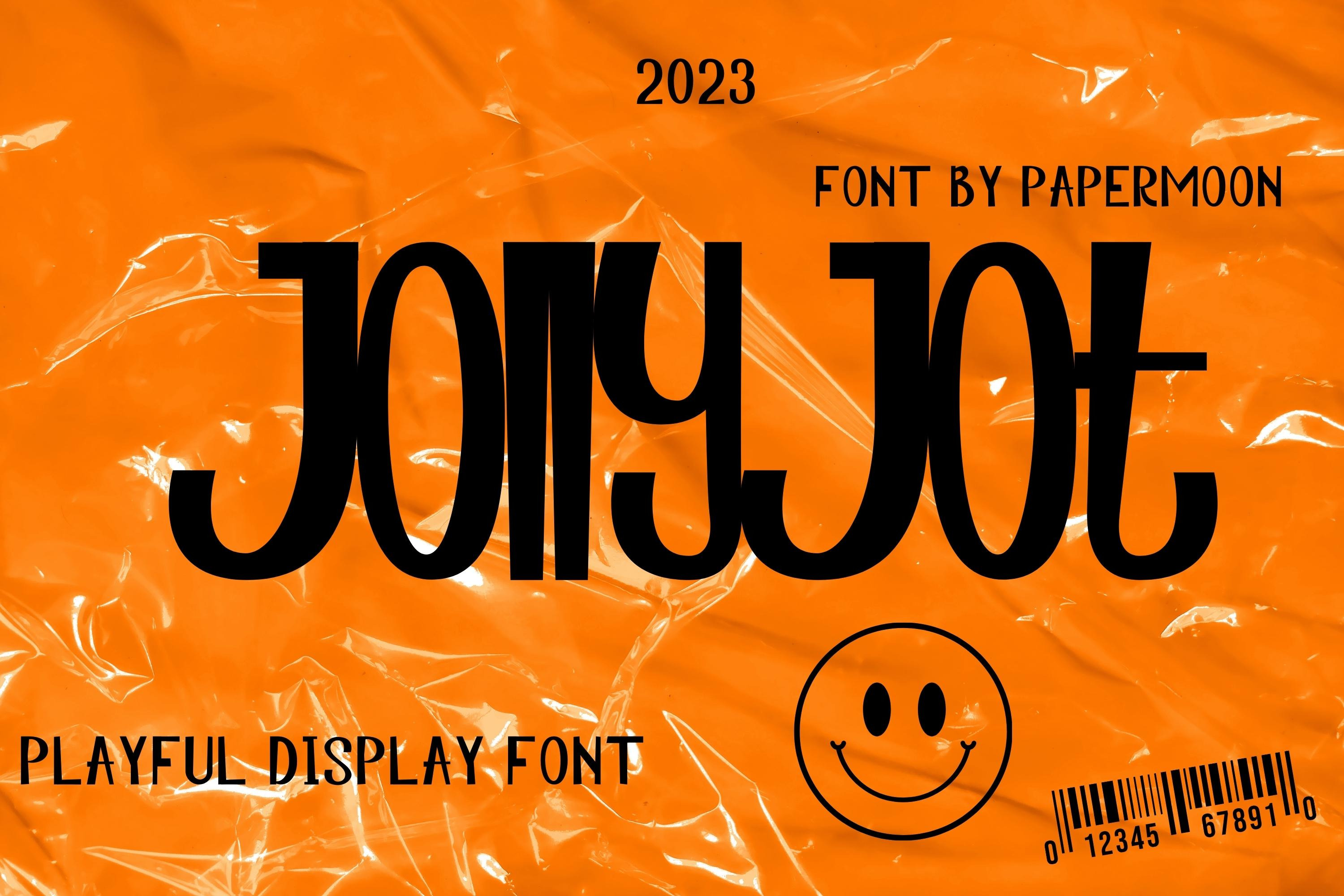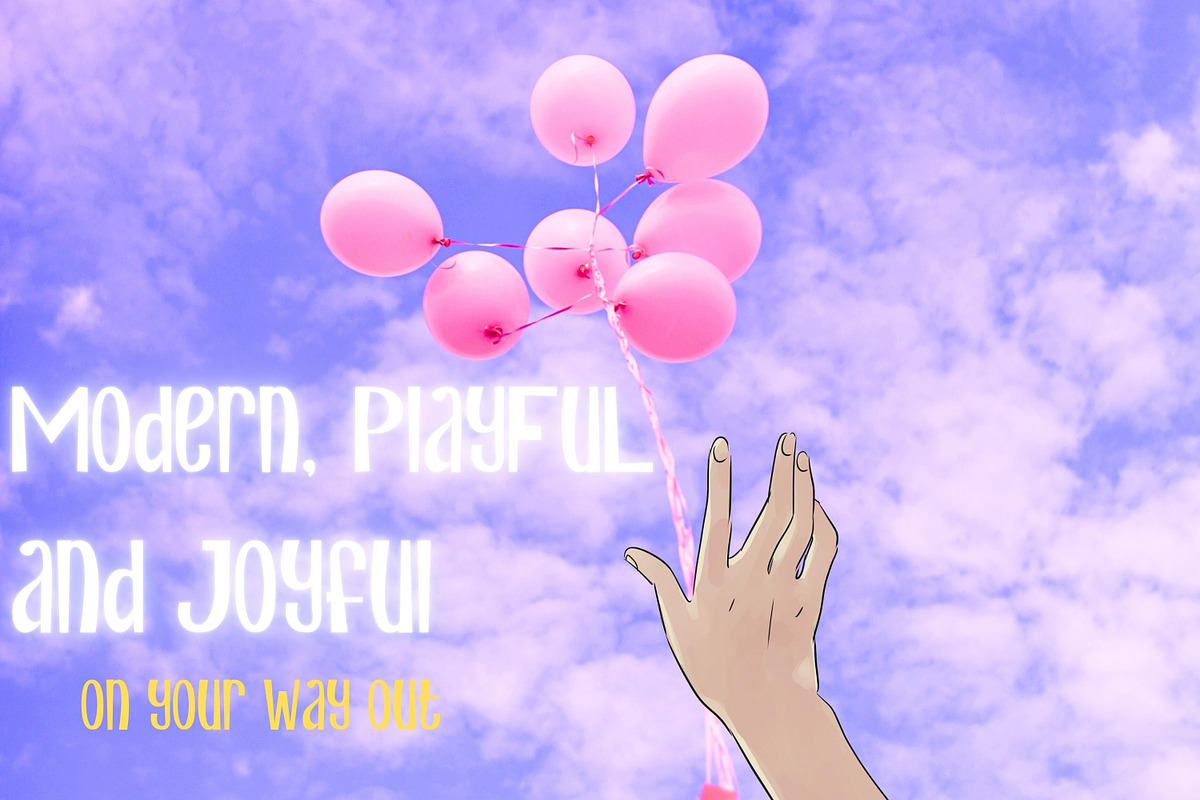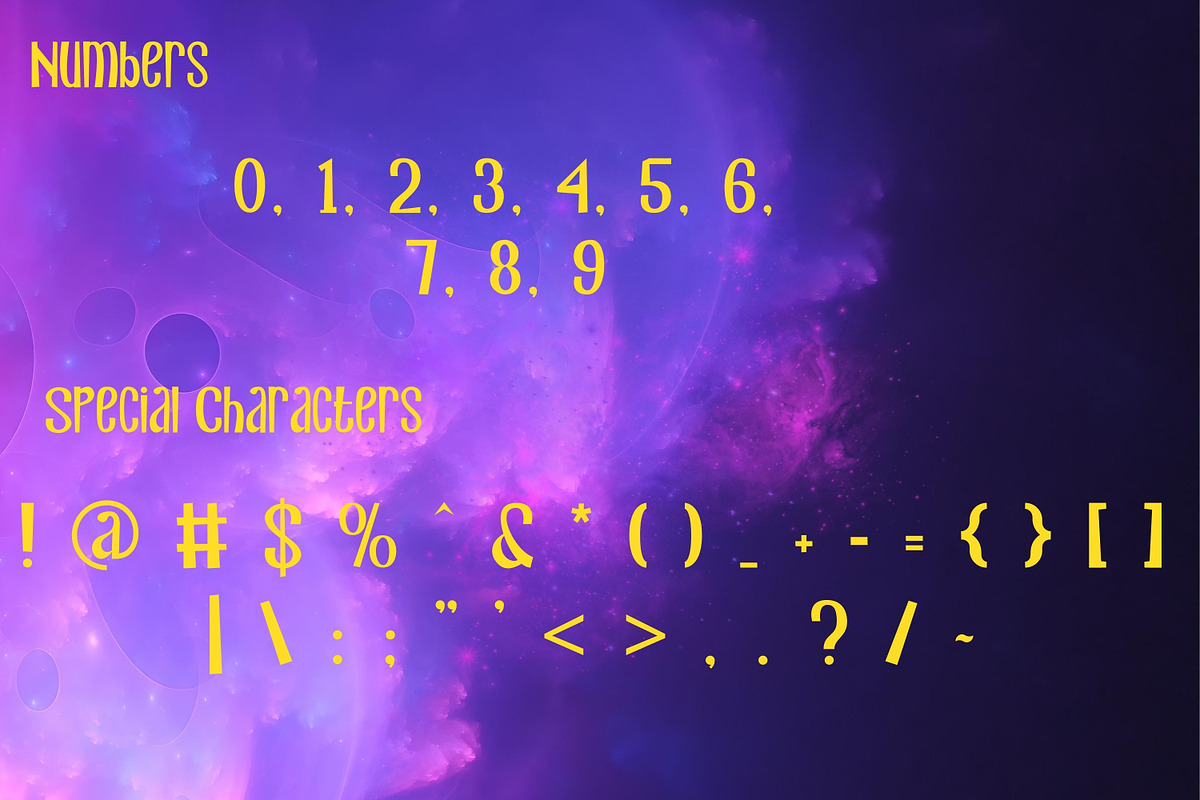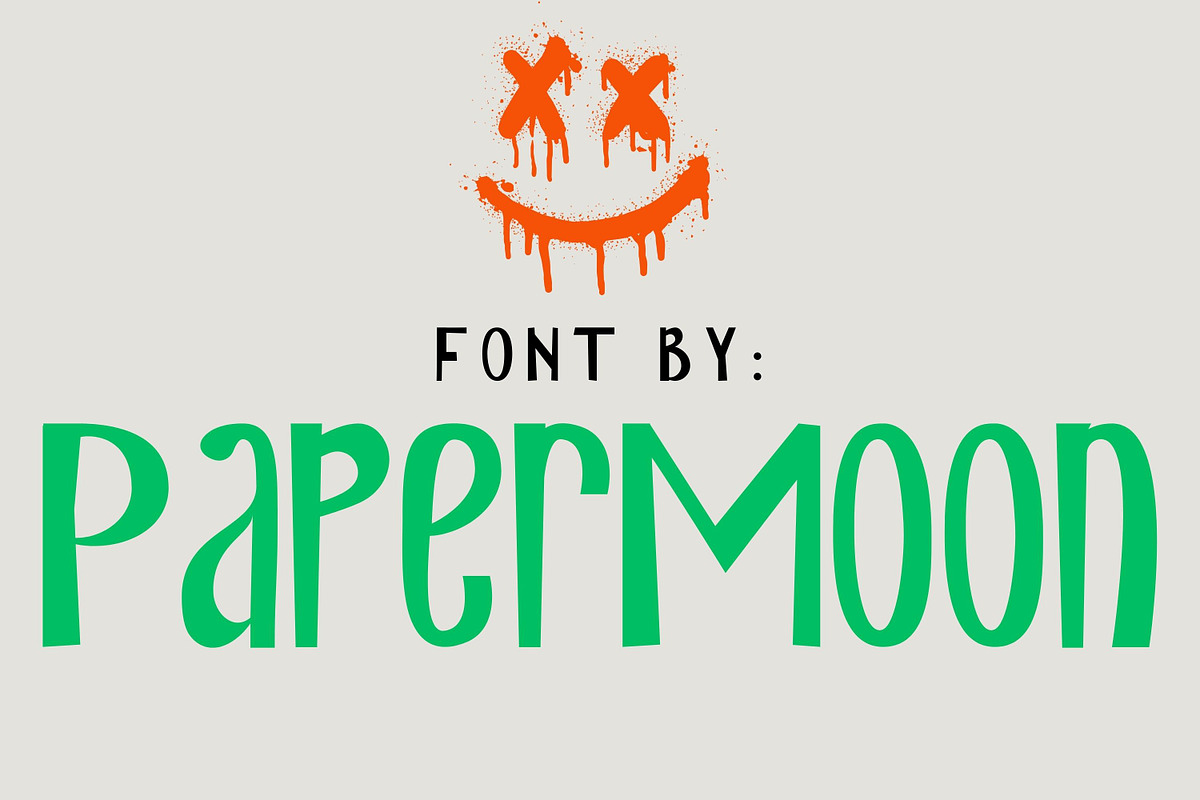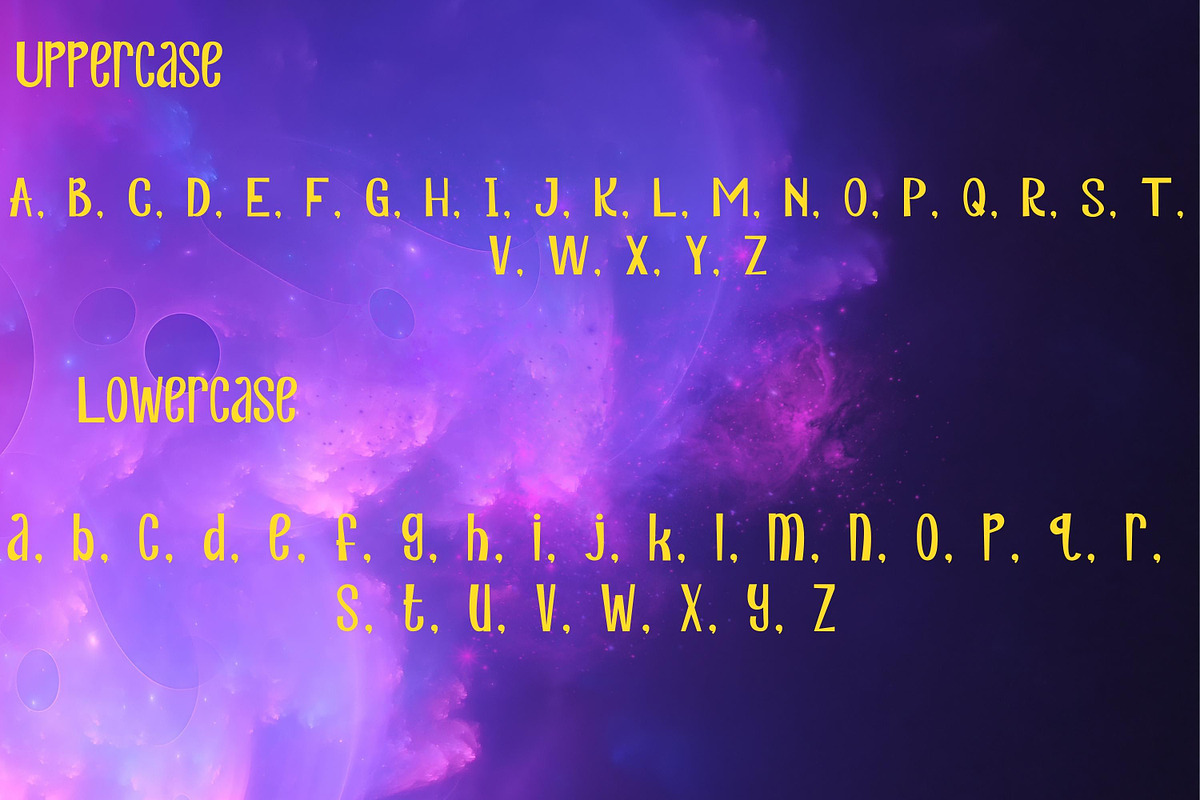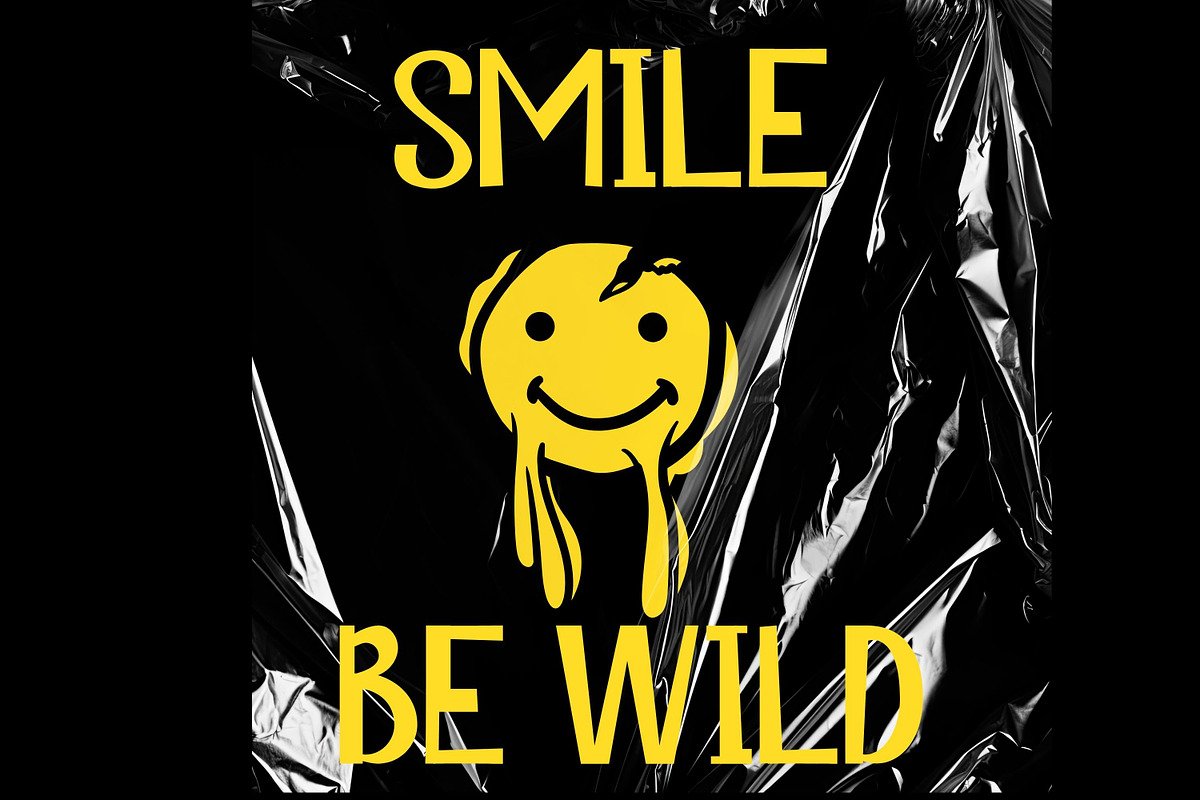
JollyJot Playful Display Font
Introducing JollyJot, a contemporary and whimsical typeface that infuses a sense of merriment into your creative endeavors. This font exudes sophistication and charm, making it an ideal choice for children-themed designs, personalized mugs, delectable snack industry branding, captivating word art for frames, and a myriad of other delightful projects.
OTF (OpenType Font) TTF (TrueType Font) JollyJot comes fully equipped with PUA Encoded Characters, ensuring effortless access to all the unique glyphs in your preferred software. It boasts a versatile array of features, including both uppercase and lowercase letters, numbers, punctuation marks, and a set of captivating ligature characters. This font embraces Multilingual Support and works seamlessly on both PC and Mac systems with a straightforward installation process. Your creative journey just got a touch more joyful with JollyJot.